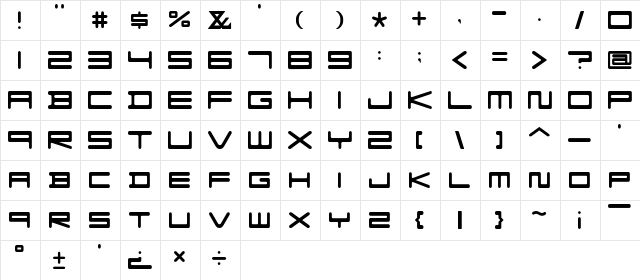
F-Zero GX Venue Font SemLt Regular
Design Context for F-Zero GX Venue Font SemLt Typeface
F-Zero GX Venue Font SemLt is a composed and adaptable typeface that performs quietly and consistently across a wide range of design contexts.
Pro Tip: Pair F-Zero GX Venue Font SemLt with a font of contrasting weight or personality to build a more expressive typographic hierarchy.